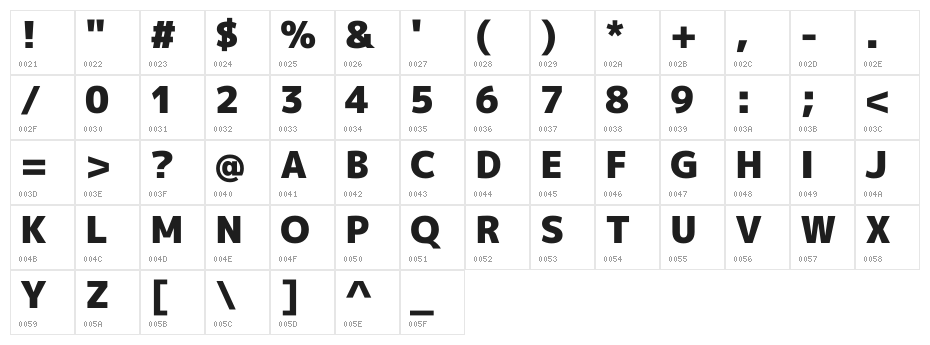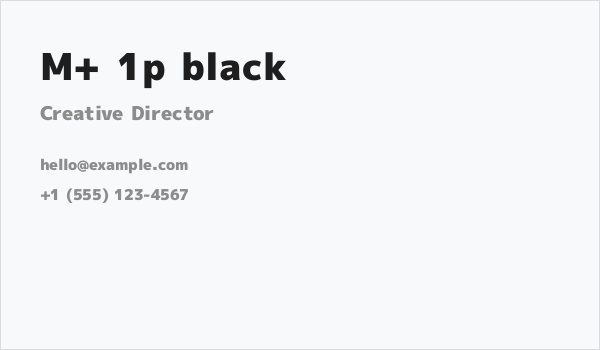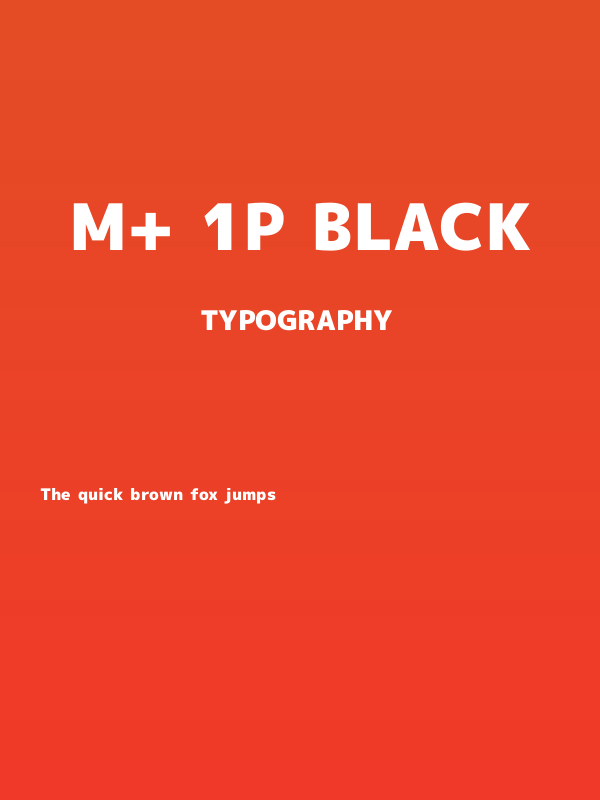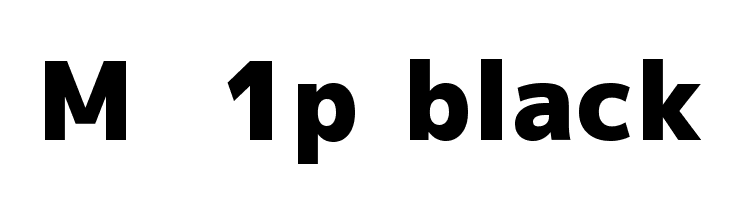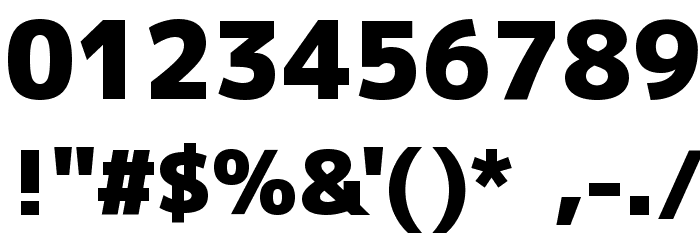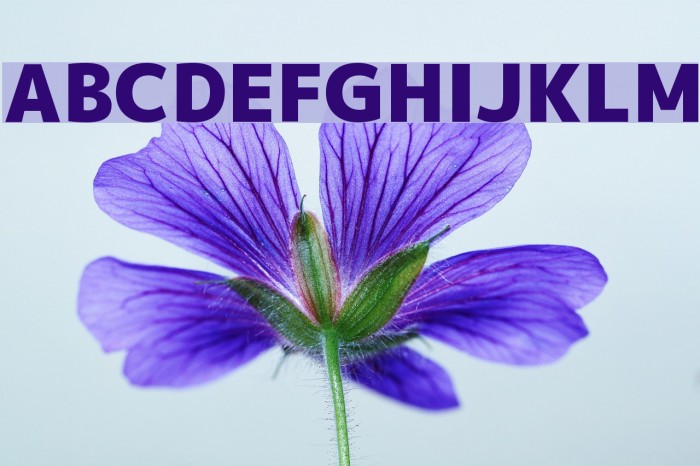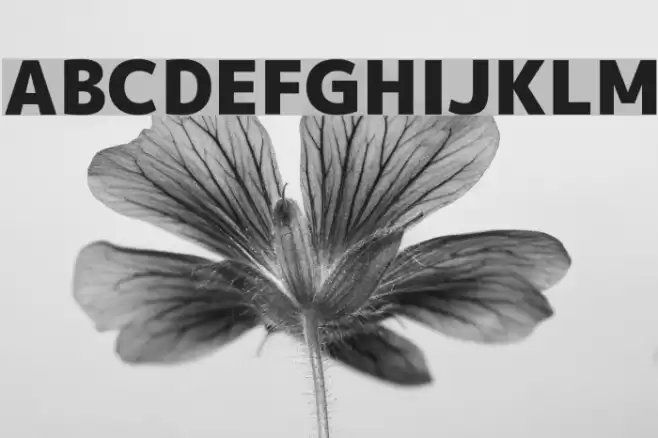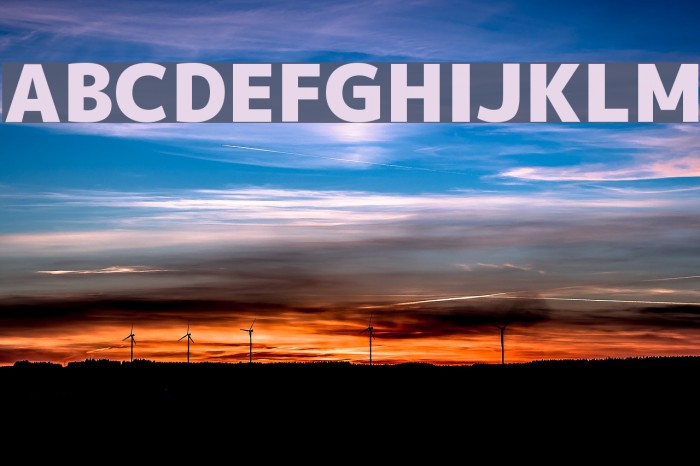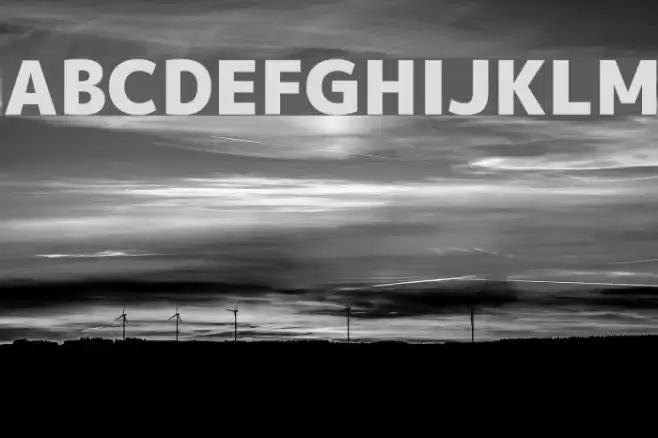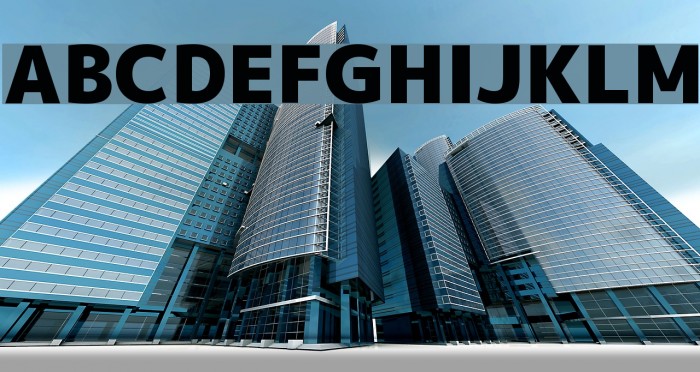
M+ 1p black Font
M+ 1p black Description
This font exhibits a bold and assertive style, characterized by thick strokes and a strong presence. The uppercase letters are uniform and blocky, providing a sense of stability and strength. The lowercase letters maintain a consistent weight, ensuring readability while retaining a robust appearance. Numbers are clear and prominent, matching the overall boldness of the alphabet. The special characters are well-defined, complementing the font's solid and impactful design. This typeface is ideal for making statements and capturing attention with its powerful and modern aesthetic.
| Proposed Projects | Ideal for headlines, posters, branding, and advertising where a strong impact is needed. |